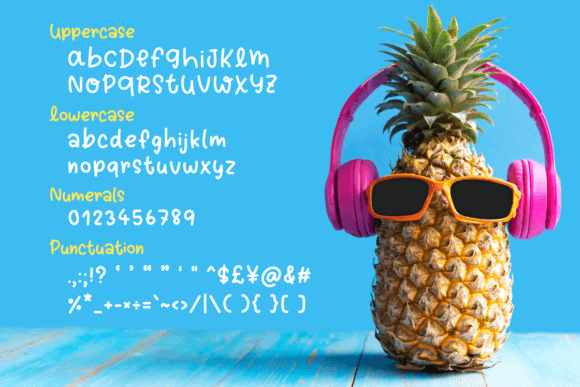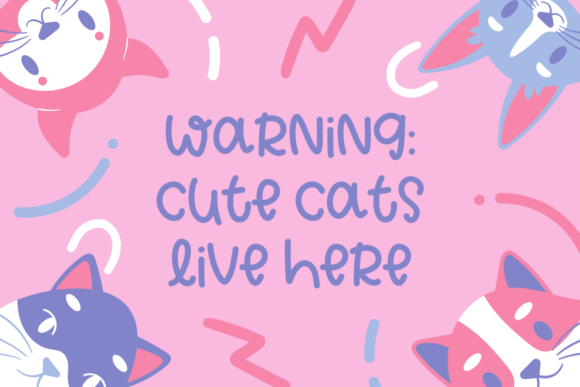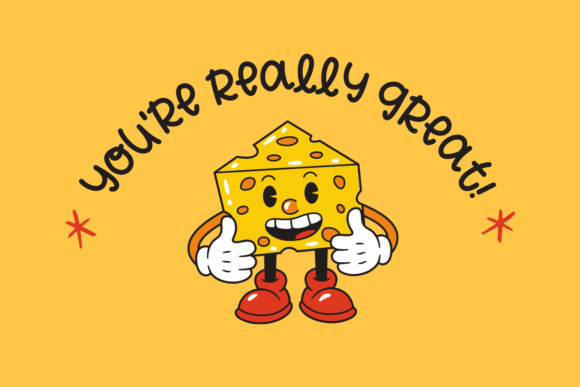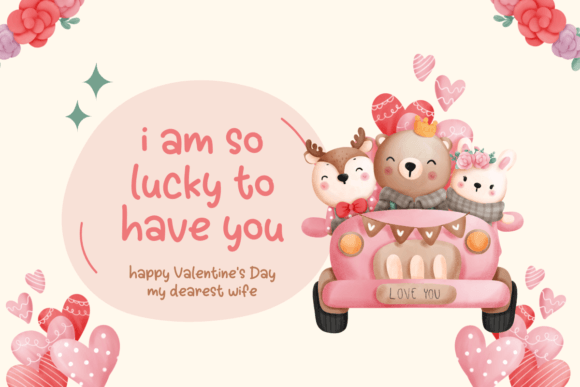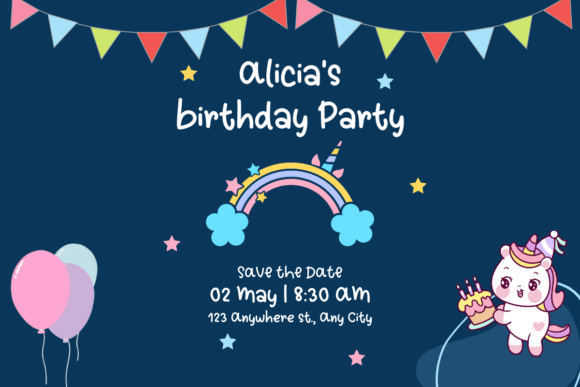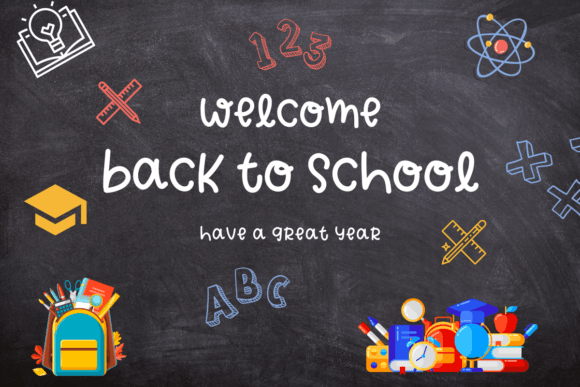
Introduction to Music Playlist Font
Introducing Music Playlist, a playful handwritten font that adds a touch of cuteness to your designs.
With its charming letterforms and cute strokes, Music Playlist brings a fun and energetic vibe to any project Whether youโre designing artwork, greeting cards, or social media graphics, this font will infuse your creations with a lighthearted and youthful feel.
Key Features of Music Playlist Font